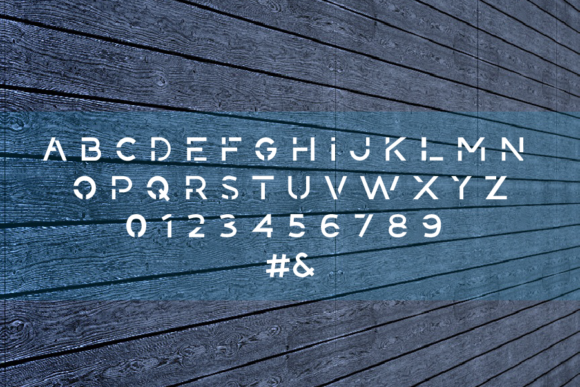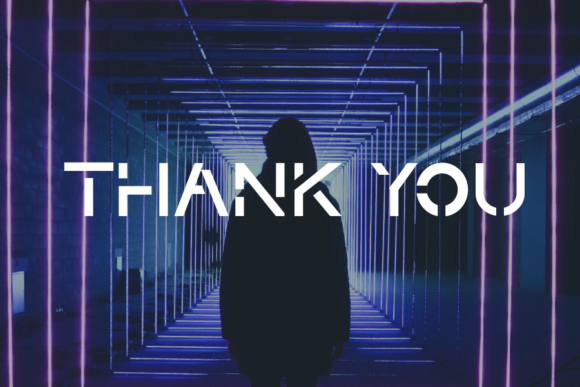
Introduction to Light Font
Remember that moment when you’re working on a creative project and the right font can make all the difference? You’ve poured your heart and soul into the design, but something’s missing. That’s where the perfect font comes in – and for designers, that’s exactly what Light Font delivers.
With its unique, abstract shapes and eclectic beauty, Light Font is a design resource that will elevate any project to the next level. Whether you’re working on a branding campaign, a brochure, or a website, this high-quality font will add a touch of sophistication and visual interest. And the best part? It’s completely free to download, making it an accessible addition to your design toolkit.
- Designed with a clean and modern aesthetic, suitable for a wide range of design applications
- Includes a comprehensive character set, covering Latin, Cyrillic, and Greek alphabets
As a designer, I’m always on the lookout for high-quality design resources that can elevate my creative projects. Recently, I stumbled upon the Light Font, and I’m excited to share my honest review with you.
- Limited character set, which can be a issue for more complex designs
- No bold or italic variations available
Overall, I’m impressed with the Light Font. It’s a great addition to any designer’s toolkit, and I appreciate the fact that it’s a free download. While it may have a few limitations, I think it’s a solid choice for most creative projects.
Light Font is a free download that can be used as a design resource for creative projects. It features a transparent background, making it easy to customize and integrate into various design applications.
Light Font is commonly used in creative projects such as logo design, infographics, and social media graphics. Its transparent background and high-quality design make it an ideal choice for designers who want to add a touch of elegance to their work.